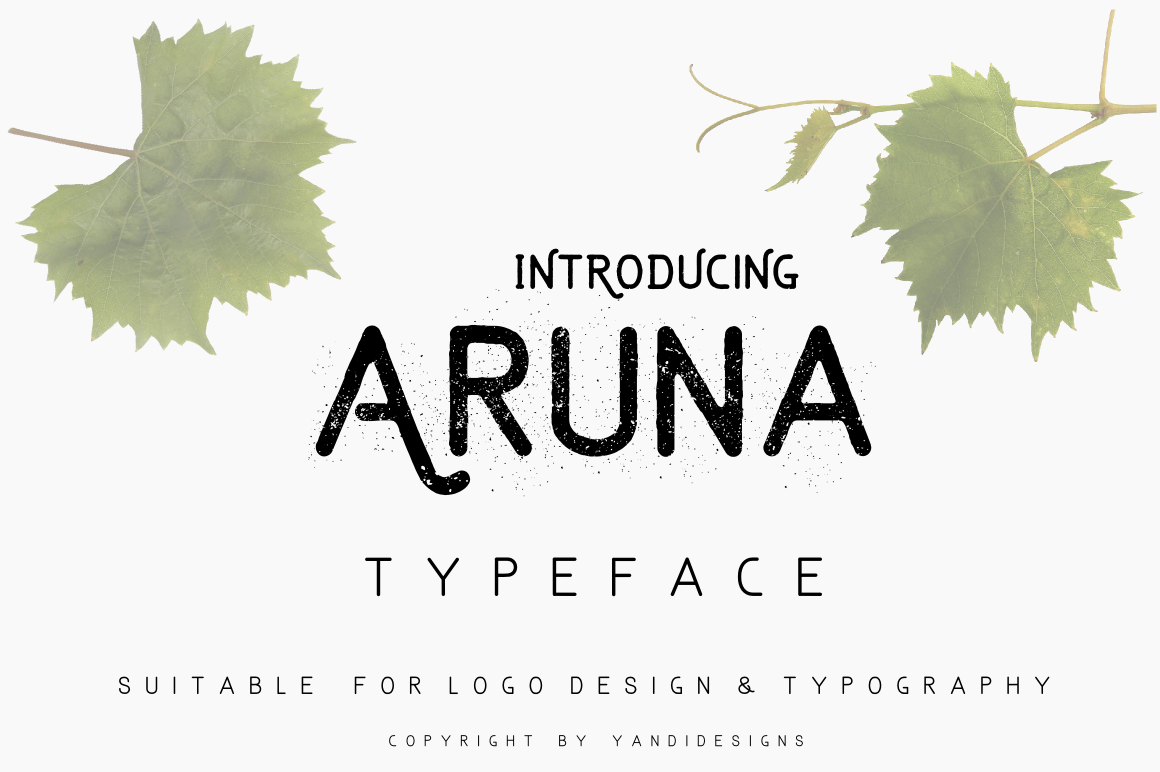
Aruna Typeface
Suitable for typography, logo designs , heading etc.
Contain 6 types, basic character and numeral. (English)
- Aruna Thin
- Aruna Regular
- Aruna Rounded
- Aruna Vintage
- Aruna Press
- Aruna Dirt